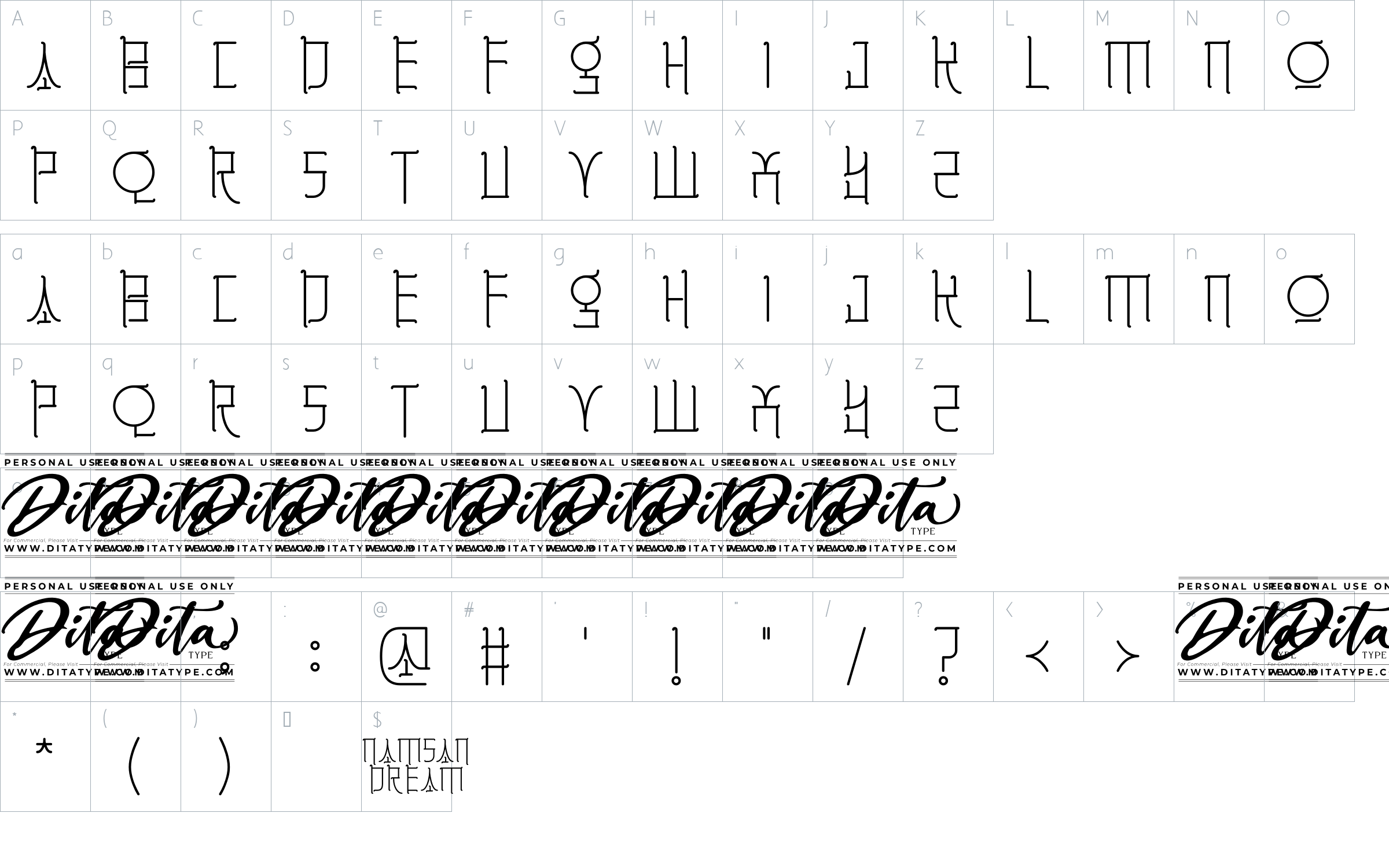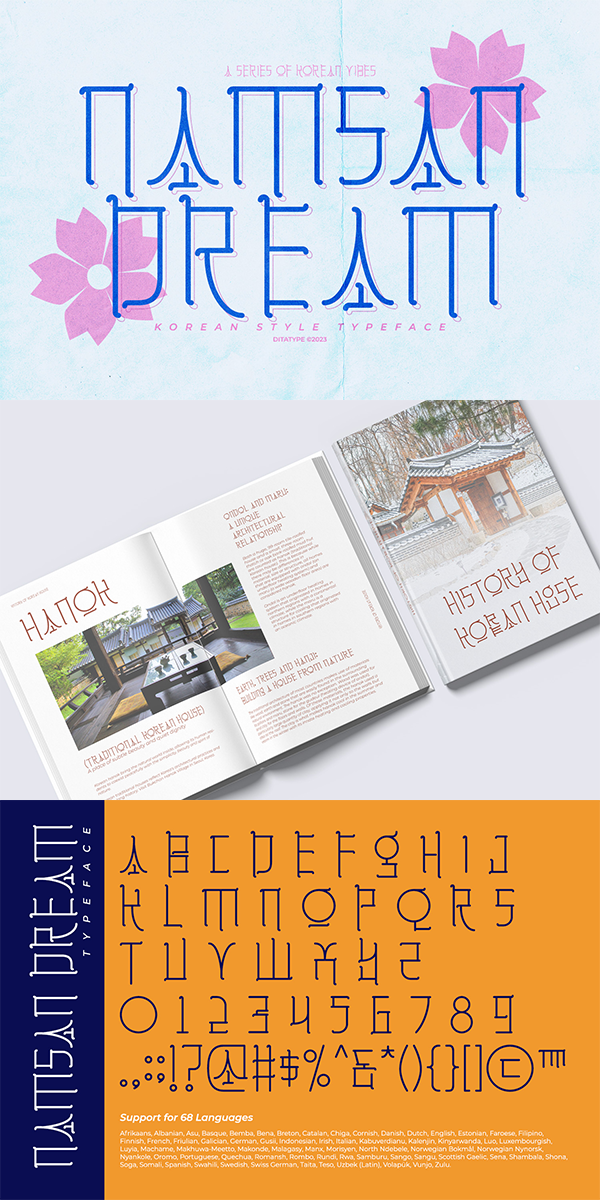
Namsan Dream Font
About Namsan Dream
Namsan Dream is a captivating display font that masterfully blends traditional Korean aesthetic with a sleek, contemporary flair. This typeface is a homage to the unique beauty of Korean typography, crafted for modern-day design needs. One of the standout characteristics of Namsan Dream is its elegantly thin font weight. This slender construction gives the font a sophisticated and refined appearance.
The design of Namsan Dream takes an intriguing turn with its tendency towards square-shaped letter forms. The square shapes echo the modern architecture and design found in Seoul’s urban landscape, particularly the iconic Namsan Seoul Tower, after which the font is named.
Adding to its unique charm, Namsan Dream features irregular letter proportions. This intentional asymmetry provides a dynamic rhythm to the text, making each word a piece of art. In addition, enjoy the features here.
Namsan Dream fits in headlines, logos, posters, flyers, branding materials, greeting cards, print media, editorial layouts, and many more designs. Find out more ways to use this font by taking a look at the font preview.